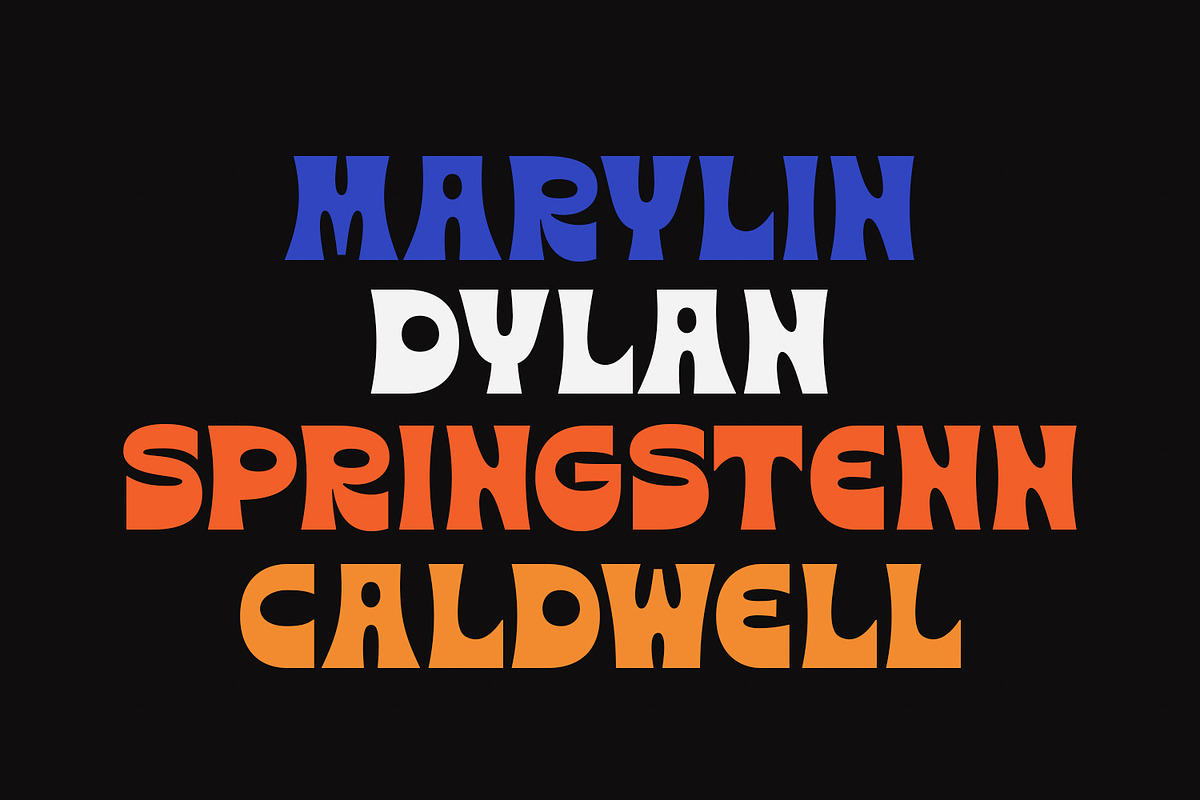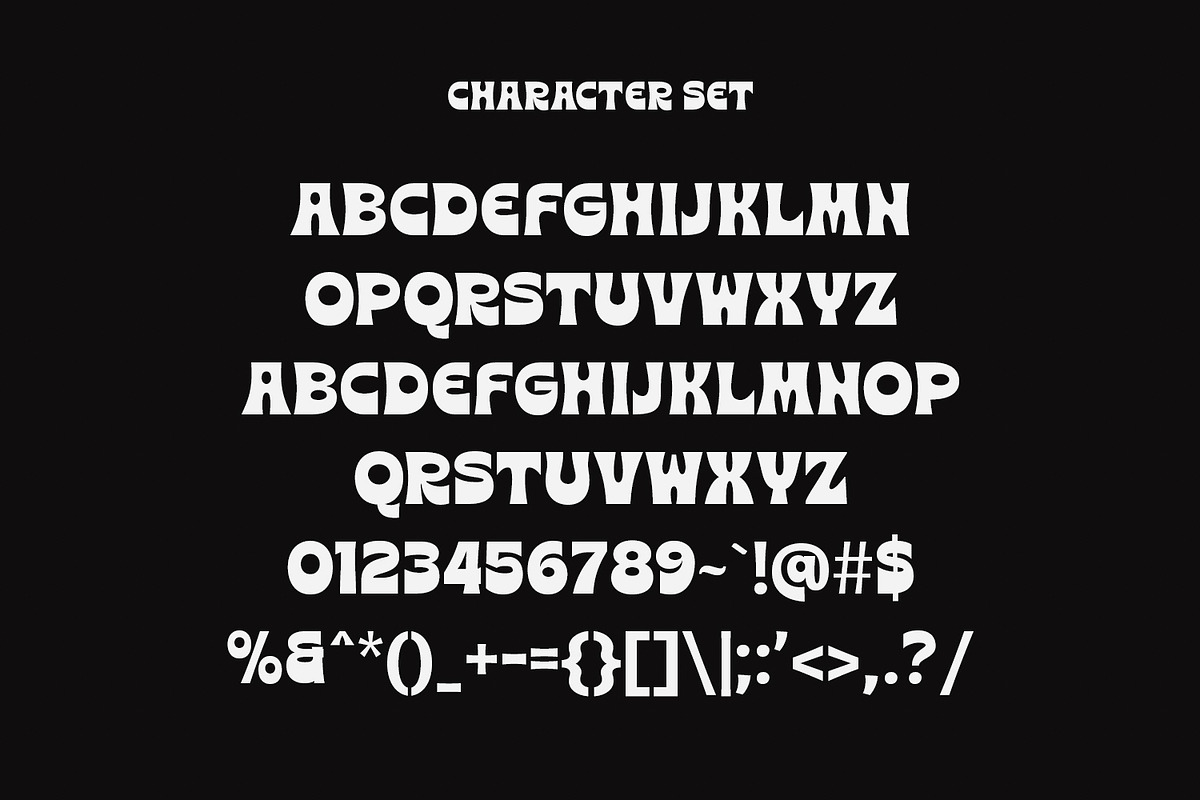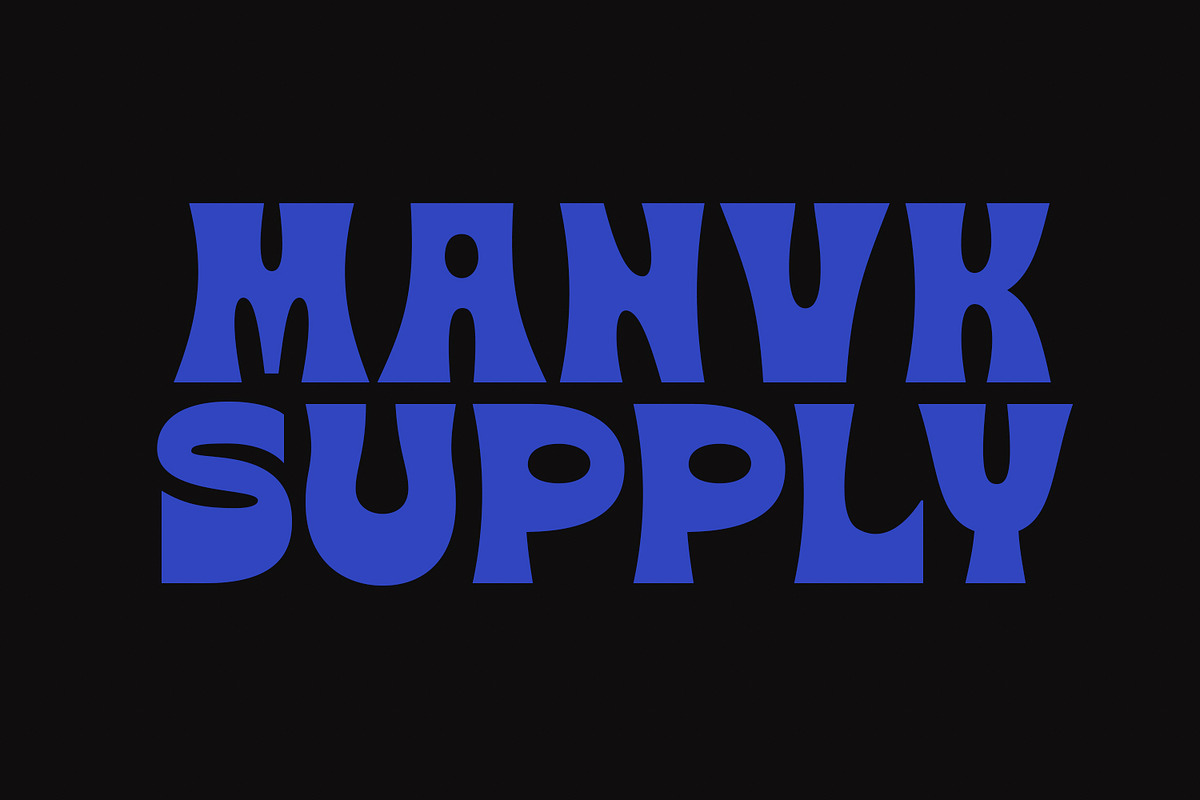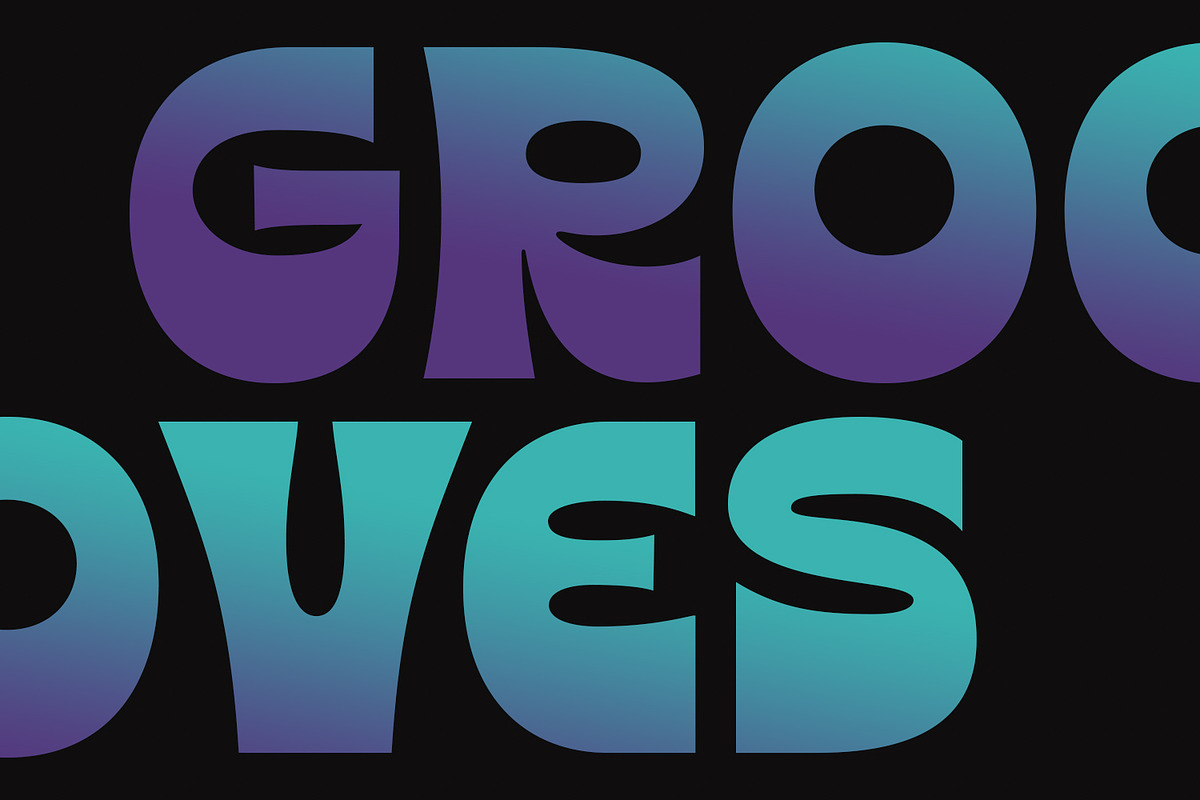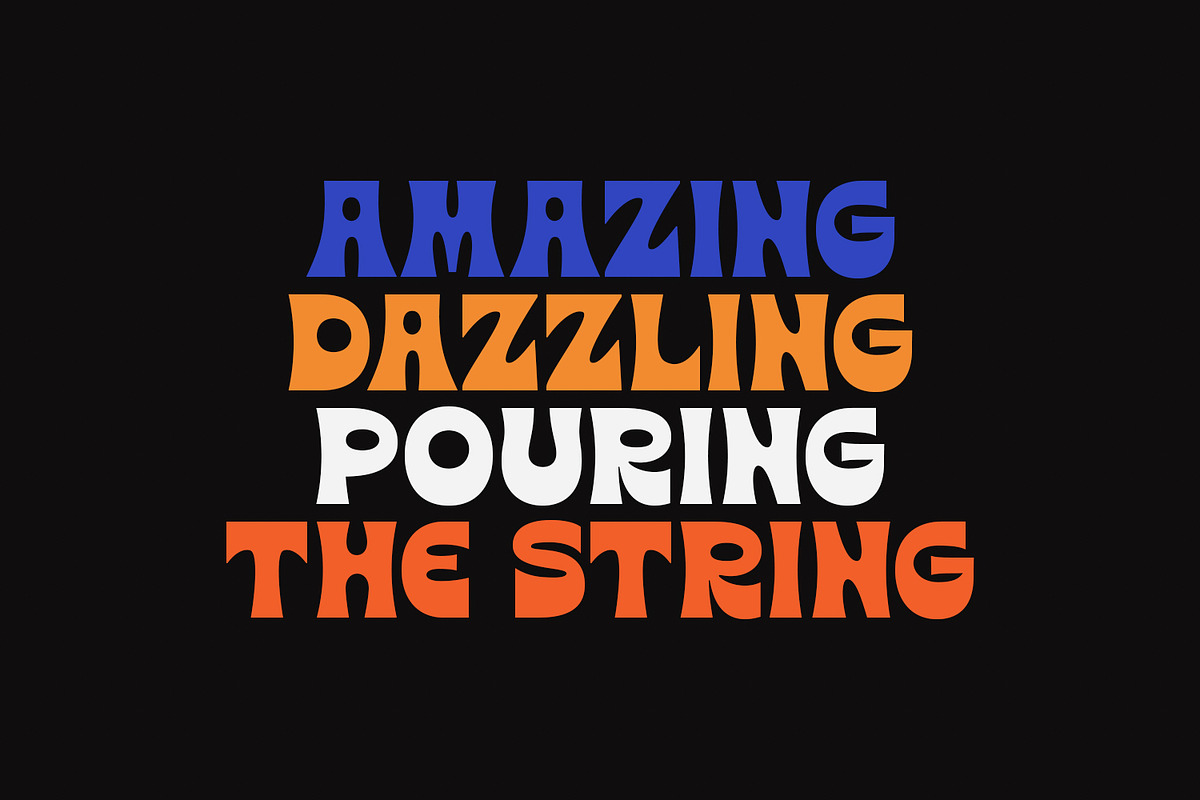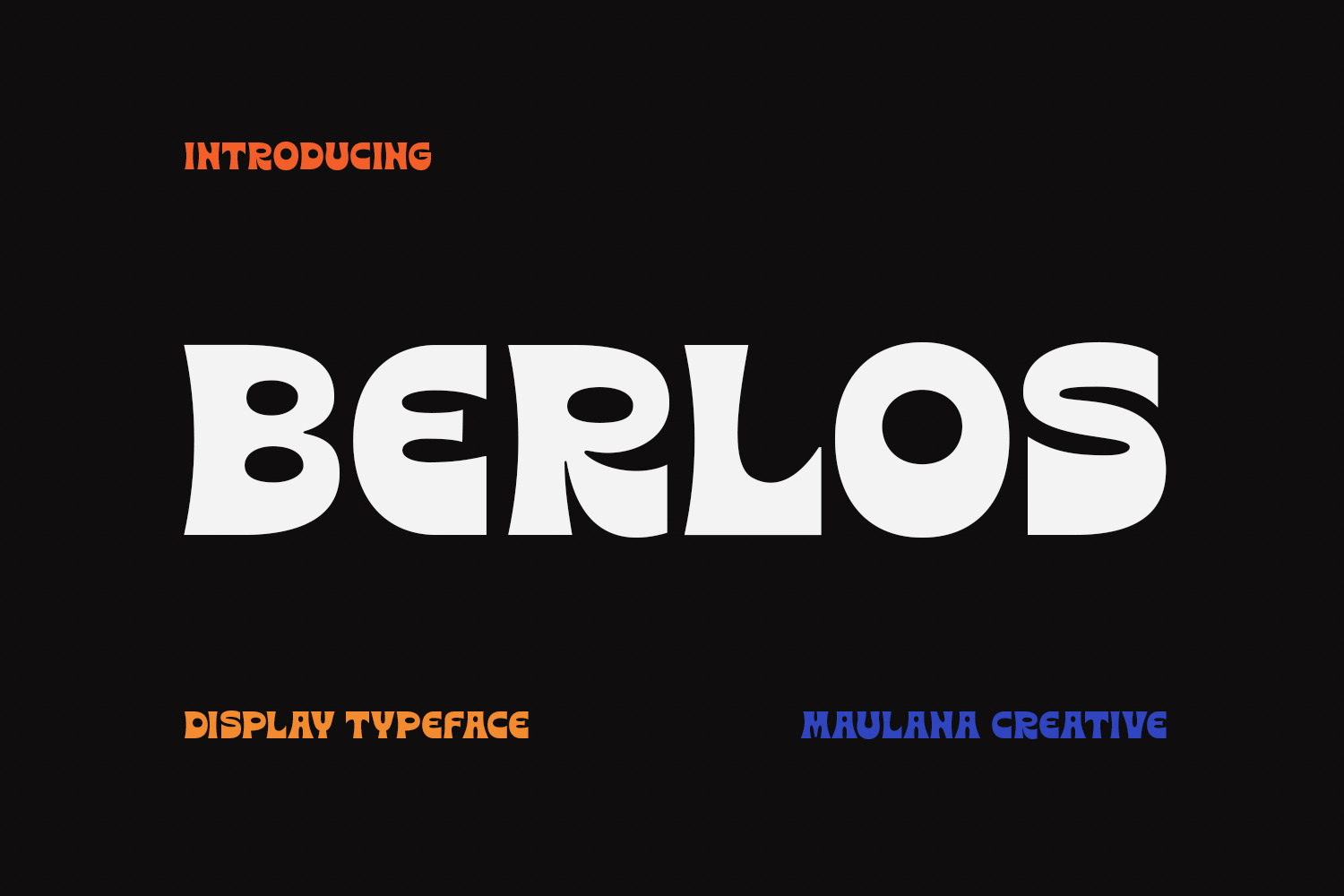
Berlos Experimental Display Font
Berlos is an all caps experimental sans display font. Bold stroke, fun character with a bit of ligatures. To give you an extra creative work. Berlos font support multilingual more than 100+ language. This font is good for logo design, Social media, Movie Titles, Books Titles, a short text even a long text letter and good for your secondary text font with script or serif. Make a stunning work with Berlos font.